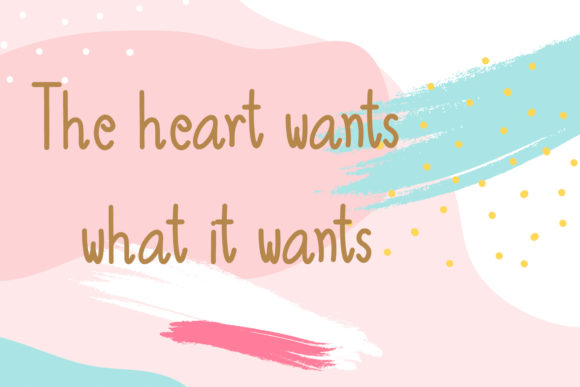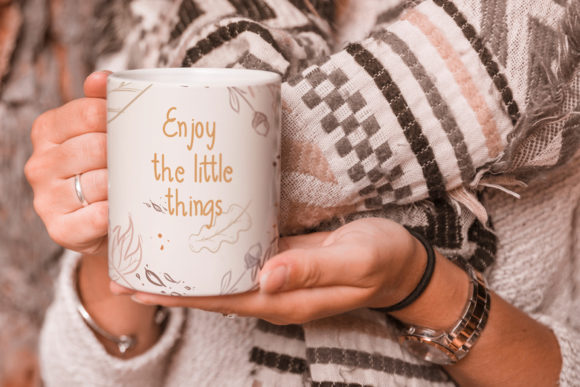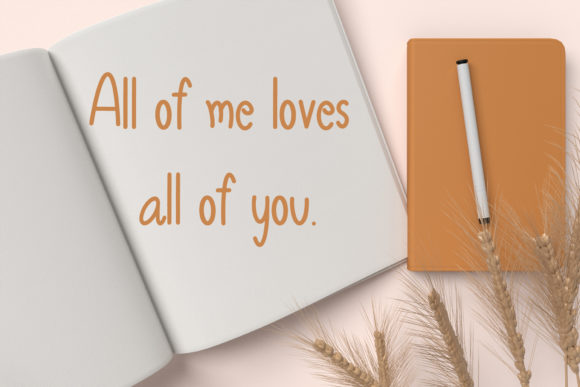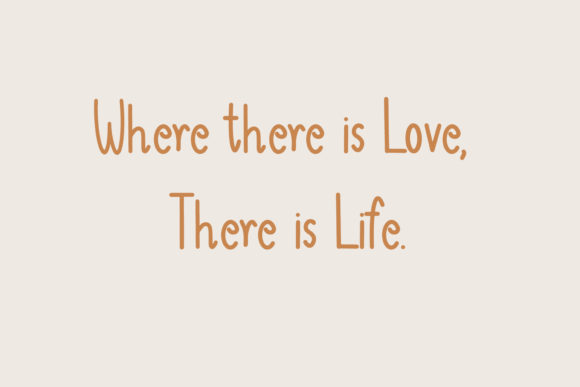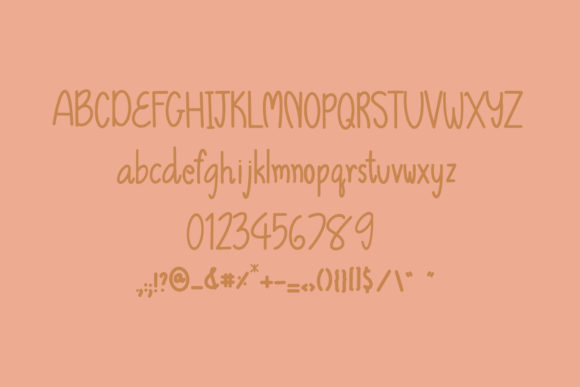
Falling in Love with Bany Love Font: A Designer’s Dream Come True
I’ll never forget the moment I stumbled upon Bany Love Font while working on a project for a client who wanted a custom wedding invitation. I had been searching for the perfect handwritten font for hours, and just when I was about to give up, I found Bany Love. Its sweet and friendly style instantly caught my eye, and I knew I had found the one. In this article, I’ll share my experience with Bany Love Font, its features, and how to make the most of it in your designs.
My Honest Review of Bany Love Font
What I Love About Bany Love Font
- ✨ Sweet and Friendly Style: Bany Love Font has an incredibly versatile style that can be used for a wide range of projects, from wedding invitations to social media graphics.
- ✅ Easy to Read: The font is clear and easy to read, even at small sizes, making it perfect for body text and captions.
- 💕 Emotional Connection: Bany Love Font has a way of evoking emotions and creating a connection with the reader, making it ideal for projects that require a personal touch.
While Bany Love Font is an amazing font, there are a few quirks to be aware of:
- 🤔 Limited Character Set: Bany Love Font has a limited character set, which may not include certain special characters or glyphs.
- ⚠️ Not Suitable for Body Text: While Bany Love Font is easy to read, it’s not the best choice for long blocks of body text due to its handwritten nature.
The Backstory of Bany Love Font
Bany Love Font was designed by a talented type designer who wanted to create a font that would evoke emotions and create a connection with the reader. The designer drew inspiration from classic handwritten fonts and infused them with a modern twist, resulting in a unique and versatile font that’s perfect for a wide range of projects.
Q: What is Bany Love Font?
A: Bany Love Font is a sweet and friendly handwritten font designed for creative projects.